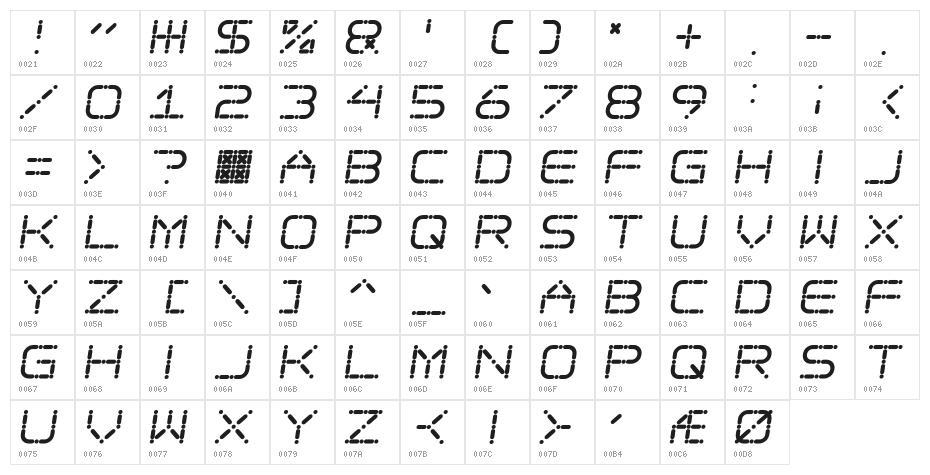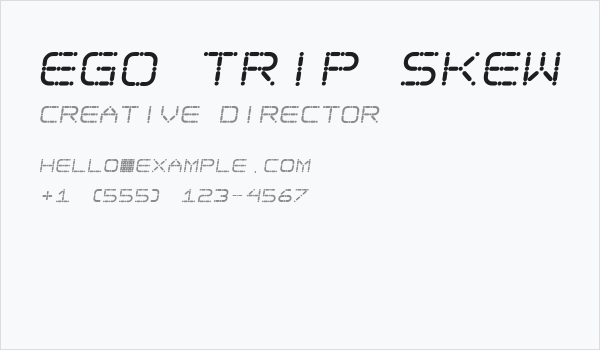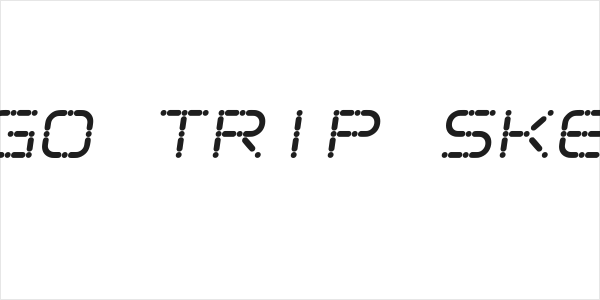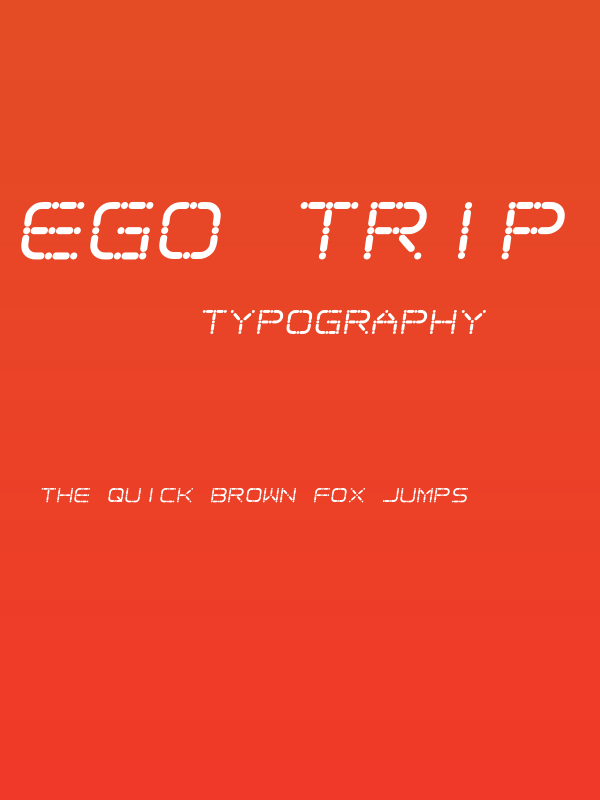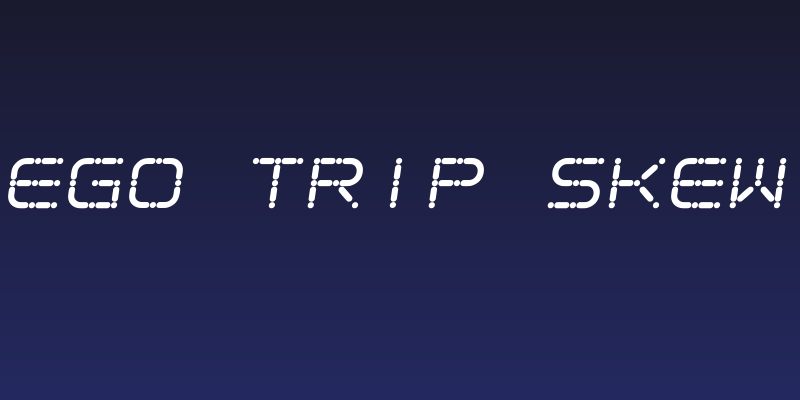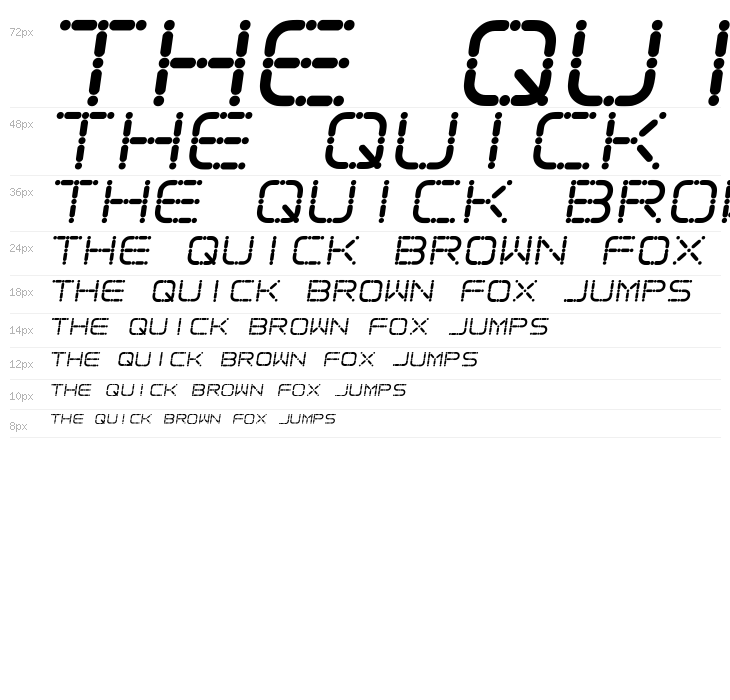
Ego trip Skew Font
Ego trip Skew Description
This font features a unique, dotted design that gives it a futuristic and digital appearance. Each character is composed of a series of evenly spaced dots, creating a cohesive and consistent look across all letters and numbers. The style is slightly slanted, adding a dynamic and forward-moving feel. The uppercase and lowercase letters maintain a uniform height, enhancing readability while preserving the distinct dotted aesthetic. The numbers and special characters follow the same design principles, ensuring a harmonious overall appearance. This font is ideal for projects that require a modern, tech-inspired look.
| Use Case | Logos, Headlines, Digital interfaces |
| Proposed Projects | Ideal for tech-related branding, digital interfaces, futuristic posters, and modern art projects. |